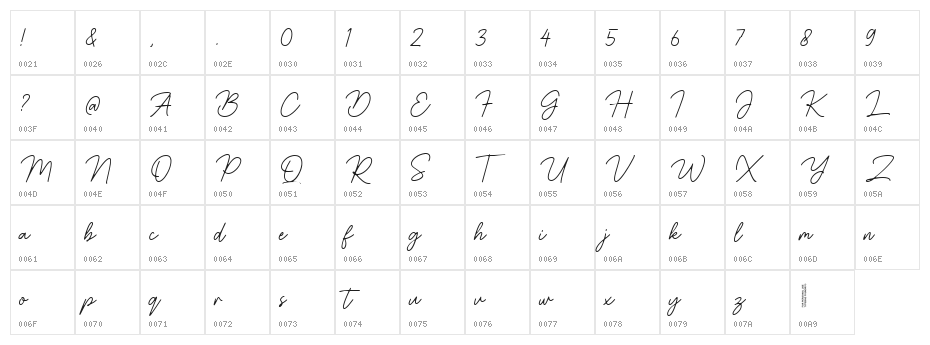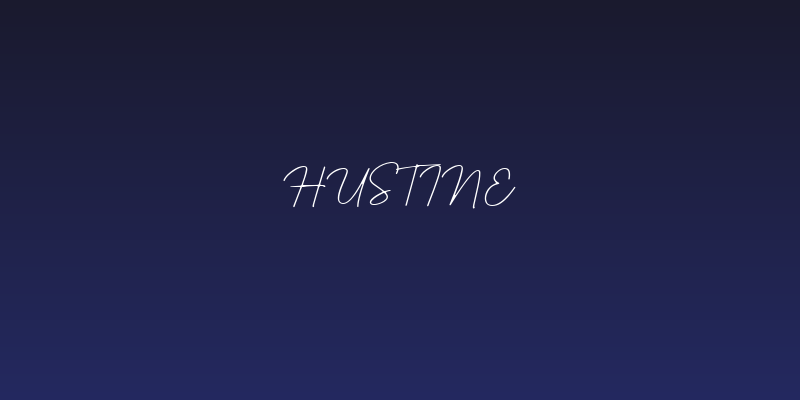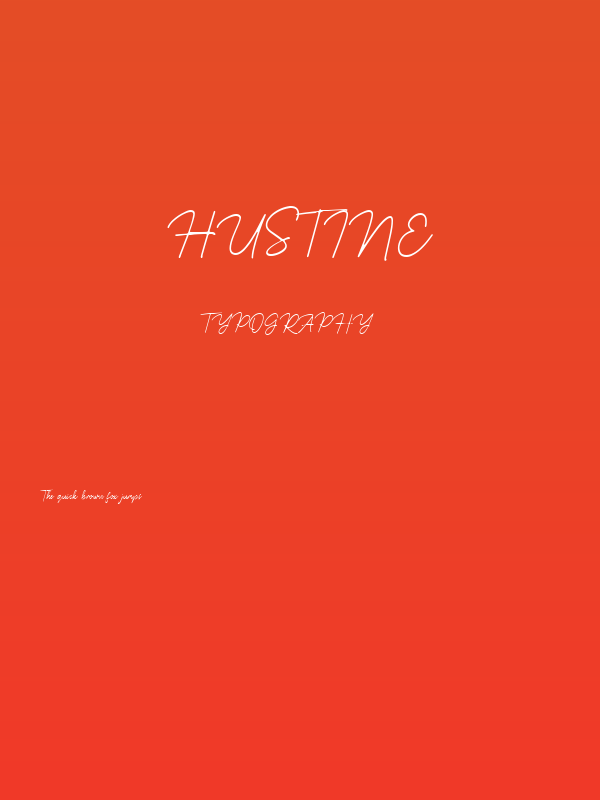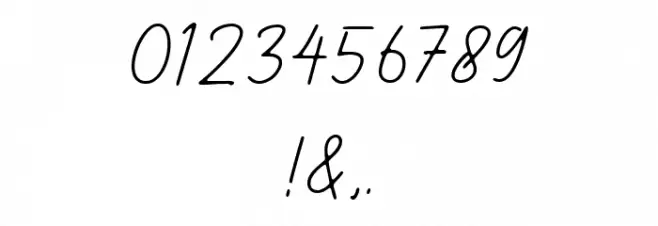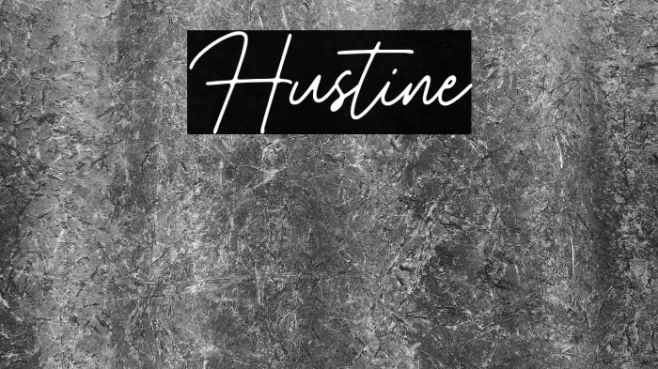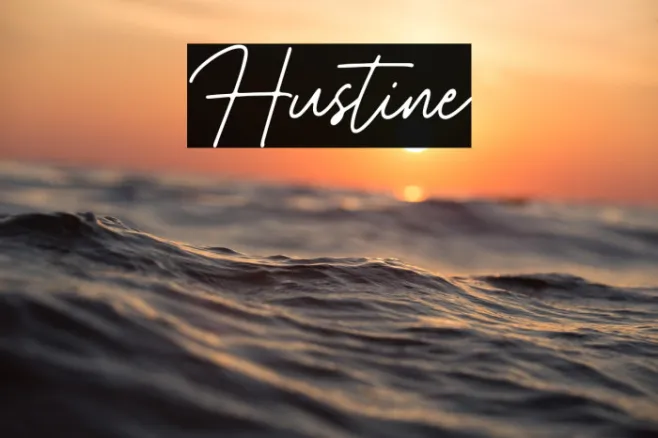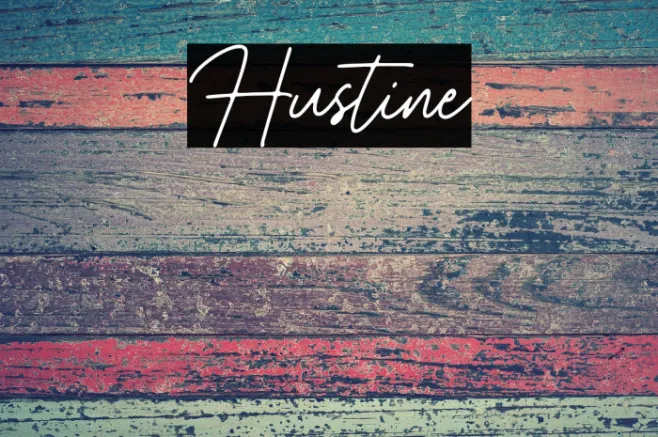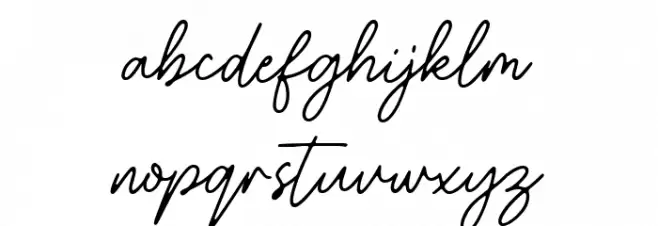
Hustine Font
Hustine Description
This font exudes a casual elegance with its fluid, handwritten style. The characters are connected in a smooth, cursive manner, giving it a personal and intimate feel. The uppercase letters maintain a consistent height, while the lowercase letters have a gentle slant, adding to the overall flow. The numerals are clear and distinct, complementing the alphabet with their simplicity. Special characters are thoughtfully designed to match the cursive style, ensuring a cohesive look across all text elements. The strokes are consistent in thickness, providing a harmonious appearance that is both readable and stylish.
| Overall Style | Elegant, Casual |
| Use Case | Invitations, Personal letters, Branding |
| Proposed Projects | Ideal for wedding invitations, personal letters, branding for boutique shops, and elegant packaging designs. |